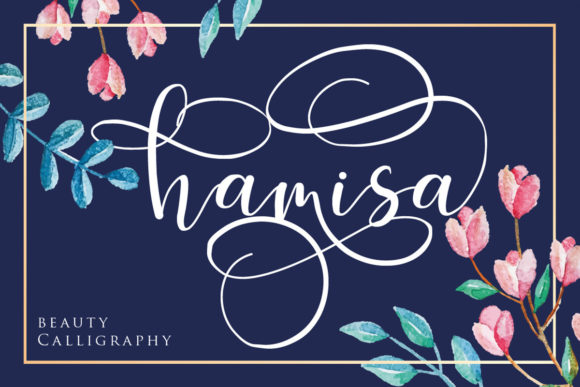
Step into the realm of elegance and uniqueness with Hamisa Font, a captivating script creation by Septa Script. This ethereal font exudes a delicate touch that will elevate your designs to new heights of sophistication.
Hamisa's single-line allure adds a touch of playfulness and charm, making it ideal for Cricut projects, whether you're crafting personalized cards, creating heartfelt invitations, or designing stunning home décor. Its light and airy presence lends a romantic touch to wedding invitations, adding an air of enchantment to your special day.
Immerse yourself in the world of Hamisa, where every letter dances with grace and beauty. Its unique feel and stunning impact will transform your designs into captivating works of art. Add a touch of luxury and refinement to your branding, logos, and social media posts, leaving a lasting impression on your audience.
Unleash your creativity and let Hamisa's magical aura flow through your designs, capturing hearts and igniting imaginations. With its PUA encoding, you can effortlessly access a treasure trove of glyphs and ligatures, opening up endless possibilities for customization and personalization.
Embrace the beauty of Hamisa Font, a font that speaks to the heart and leaves a lasting impression. Its versatility knows no bounds, making it the perfect choice for a wide range of projects, from heartfelt quotes to stunning logos. Experience the magic of Hamisa today and transform your designs into masterpieces that radiate elegance and charm.